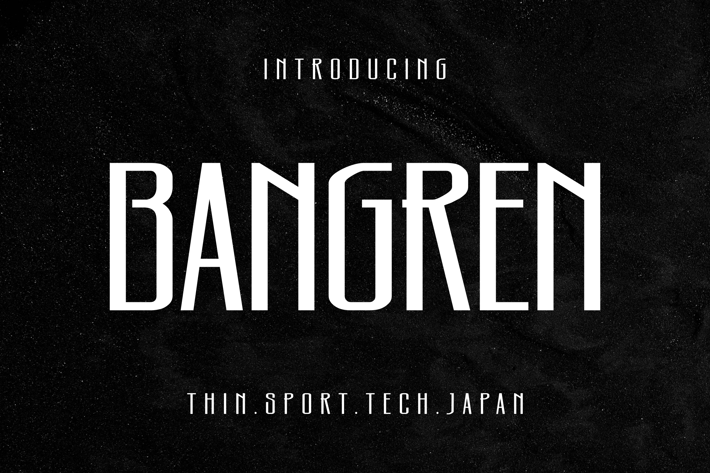
Bangren Font
Bangren Font – Modern Techno Sport Typeface
🚀 Bangren is the perfect choice for designs with technology, sports, and automotive themes. With its futuristic look and sleek thin lines, this font is ideal for robotic, football, soccer, motorbike, and automotive projects.
Key Features:
Font Type: Techno, Sport, Lite, Thin.\
Special Design: Perfect for robotic, football, soccer, motorbike, and automotive themes.\
Quality: Professional design with excellent readability